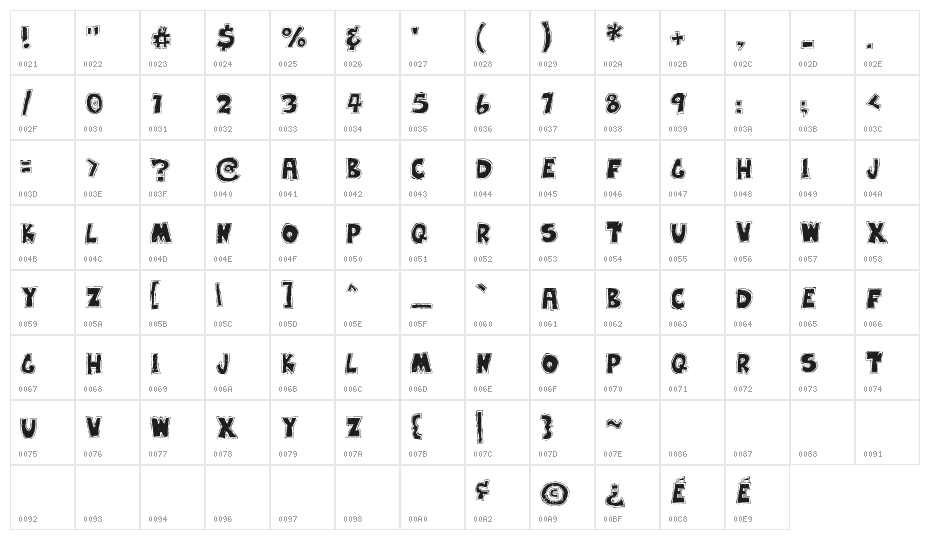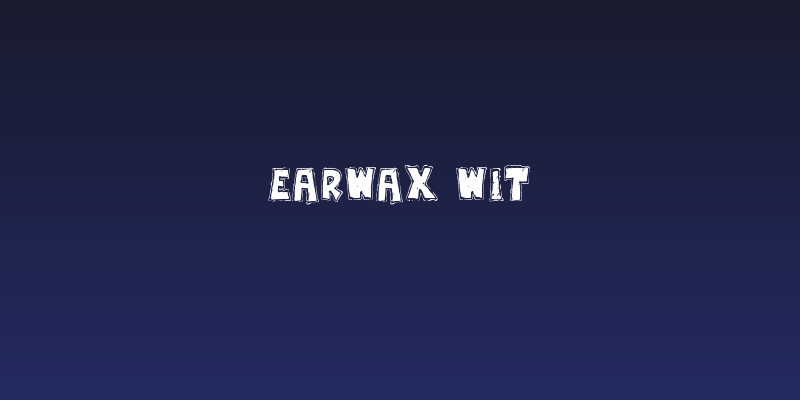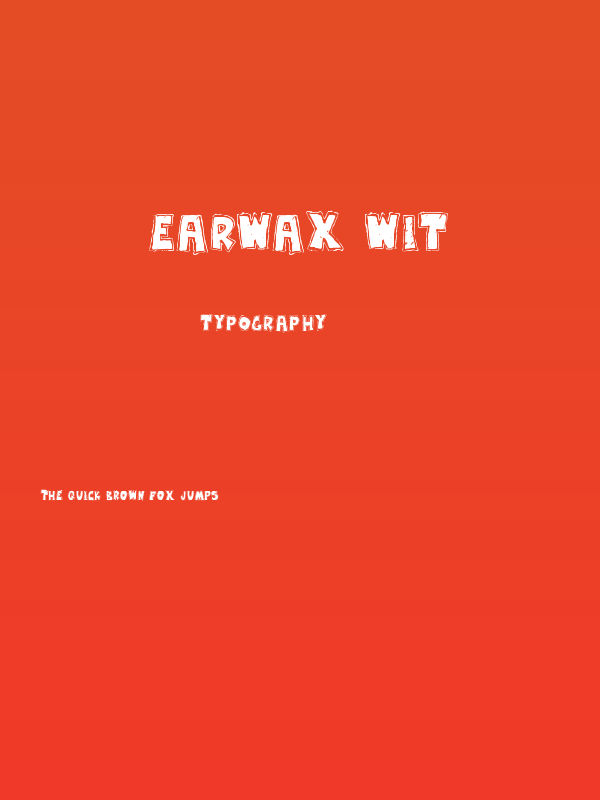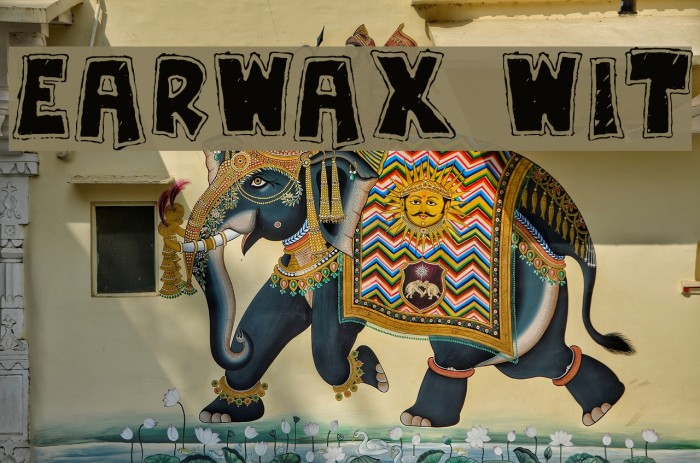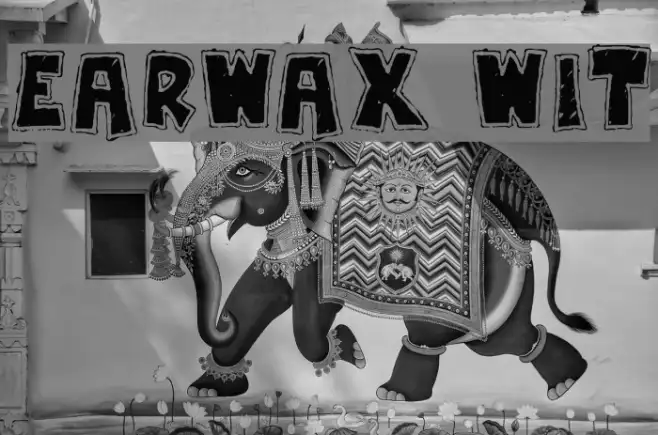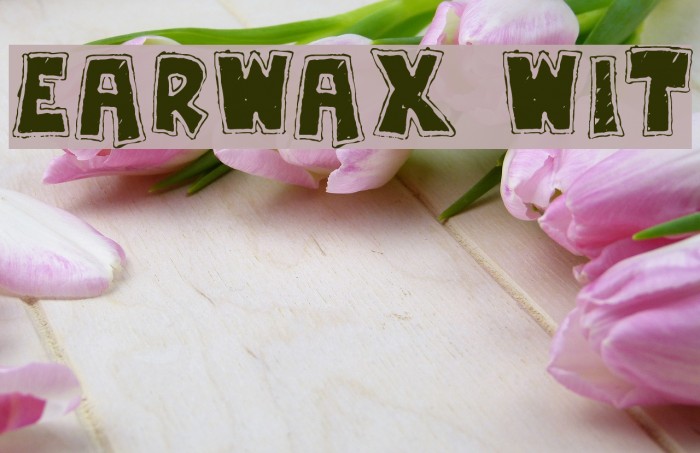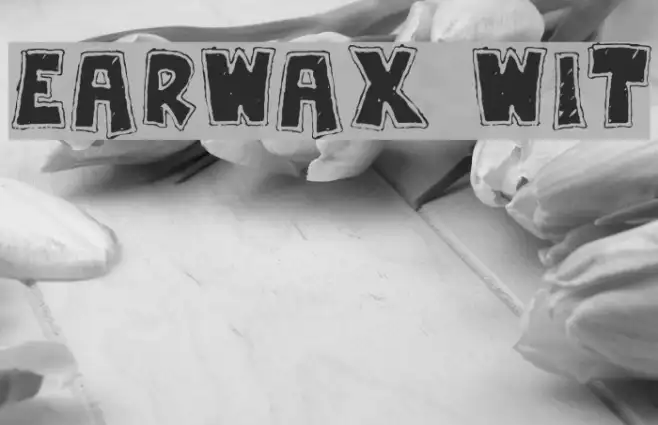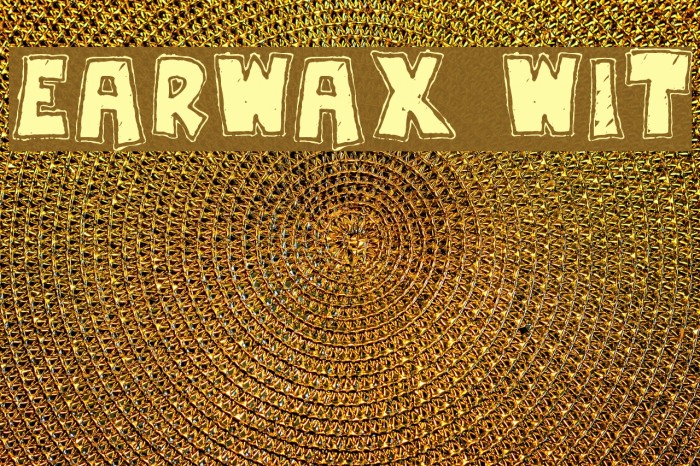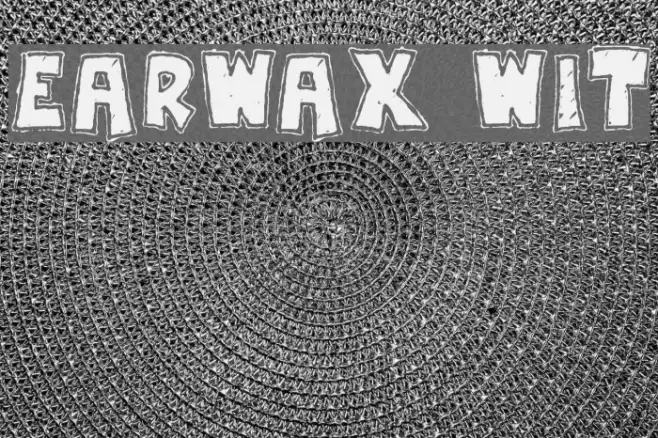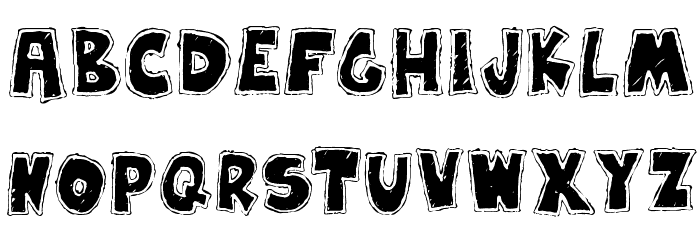
Earwax Wit Font
Earwax Wit Description
This font features a bold, playful style with a hand-drawn appearance. Each character is outlined with a rough, sketch-like border, giving it a dynamic and energetic feel. The letters are slightly irregular, adding to the whimsical and informal aesthetic. The font is highly legible, with distinct shapes that stand out due to the thick outlines and filled-in centers. It includes a full set of uppercase and lowercase letters, numbers, and a variety of special characters, making it versatile for creative projects.
| Overall Style | Playful, Whimsical, Hand-drawn |
| Proposed Projects | Ideal for comic books, children's books, playful branding, posters, and creative social media graphics. |